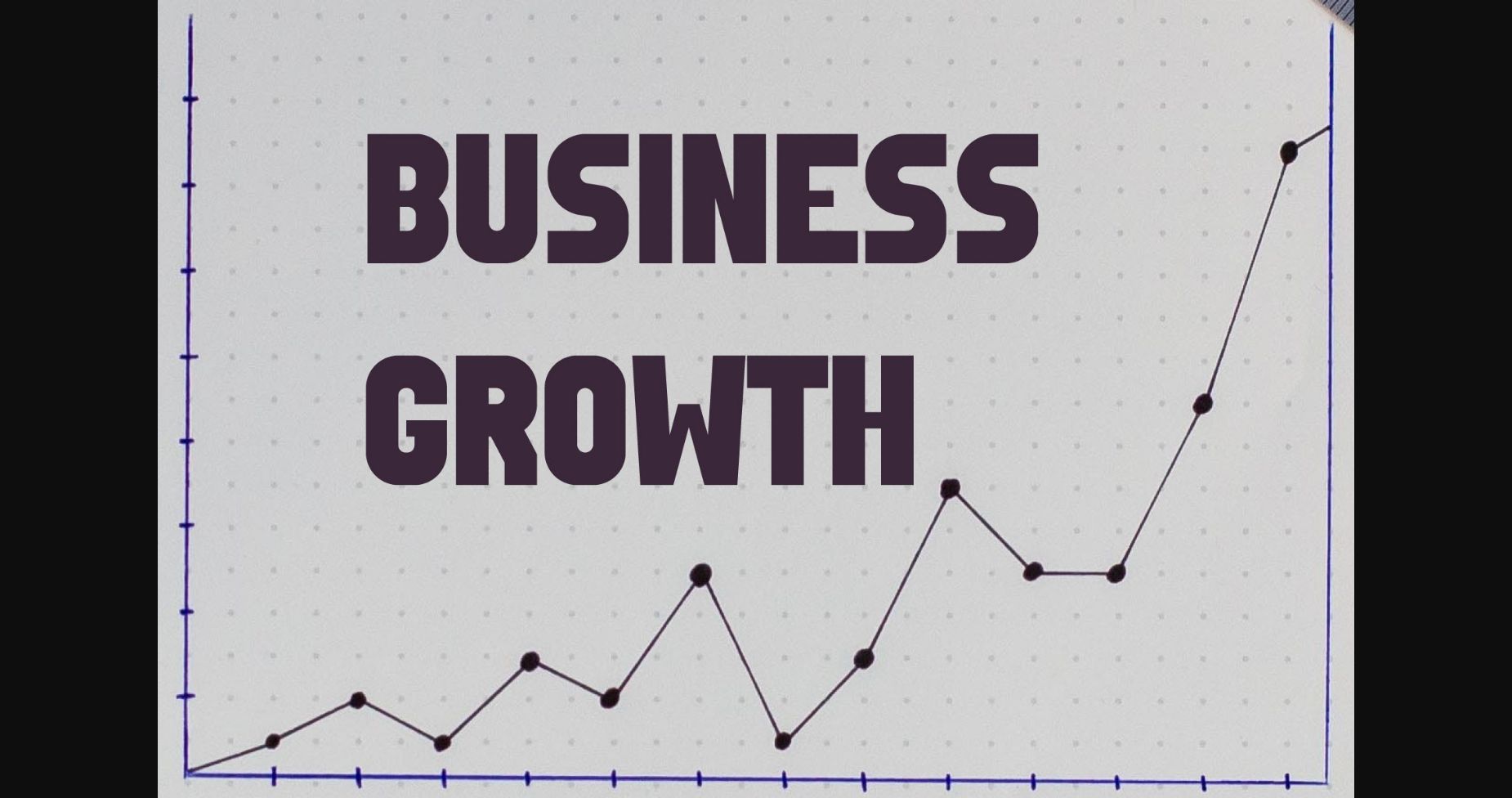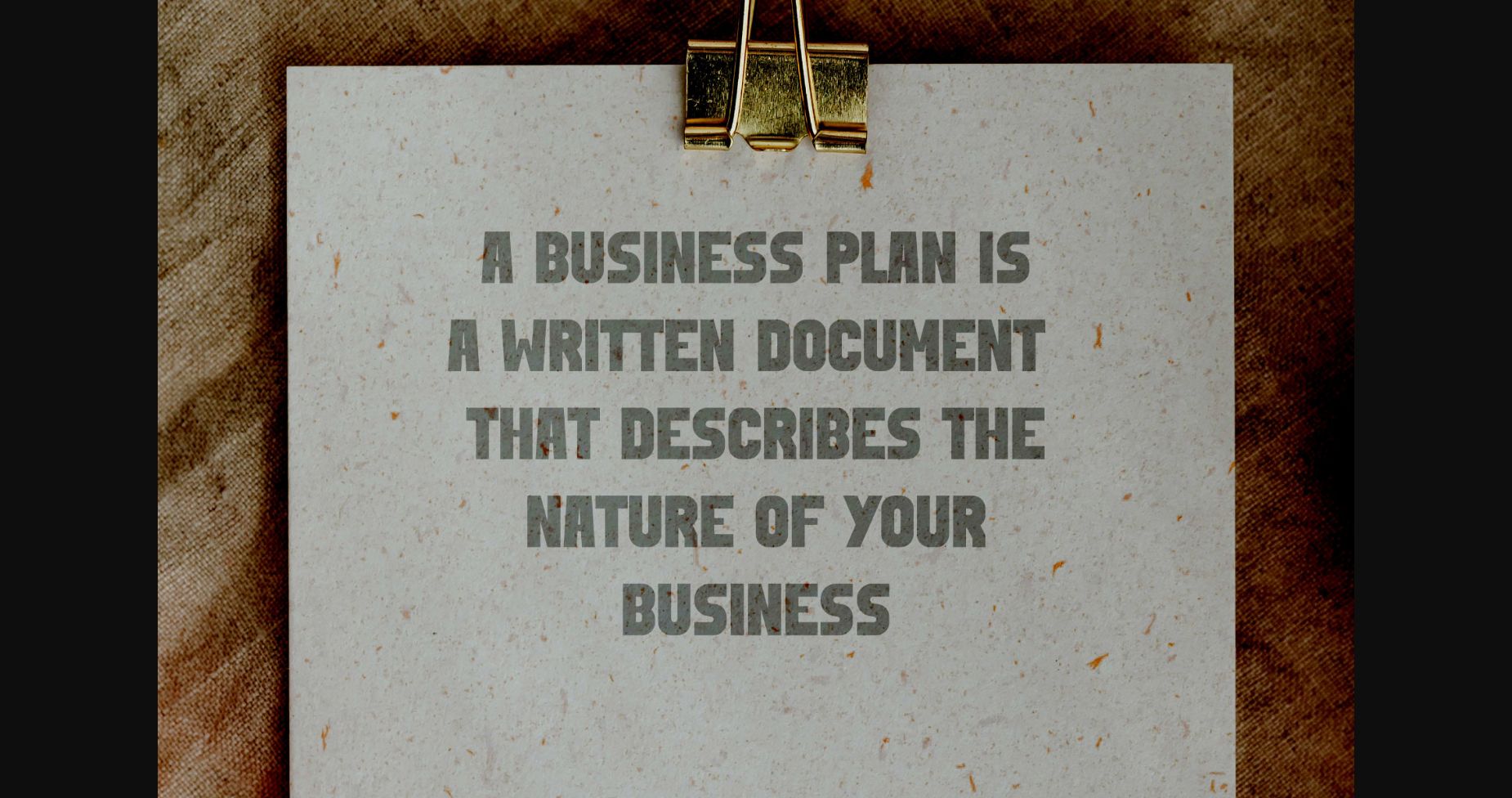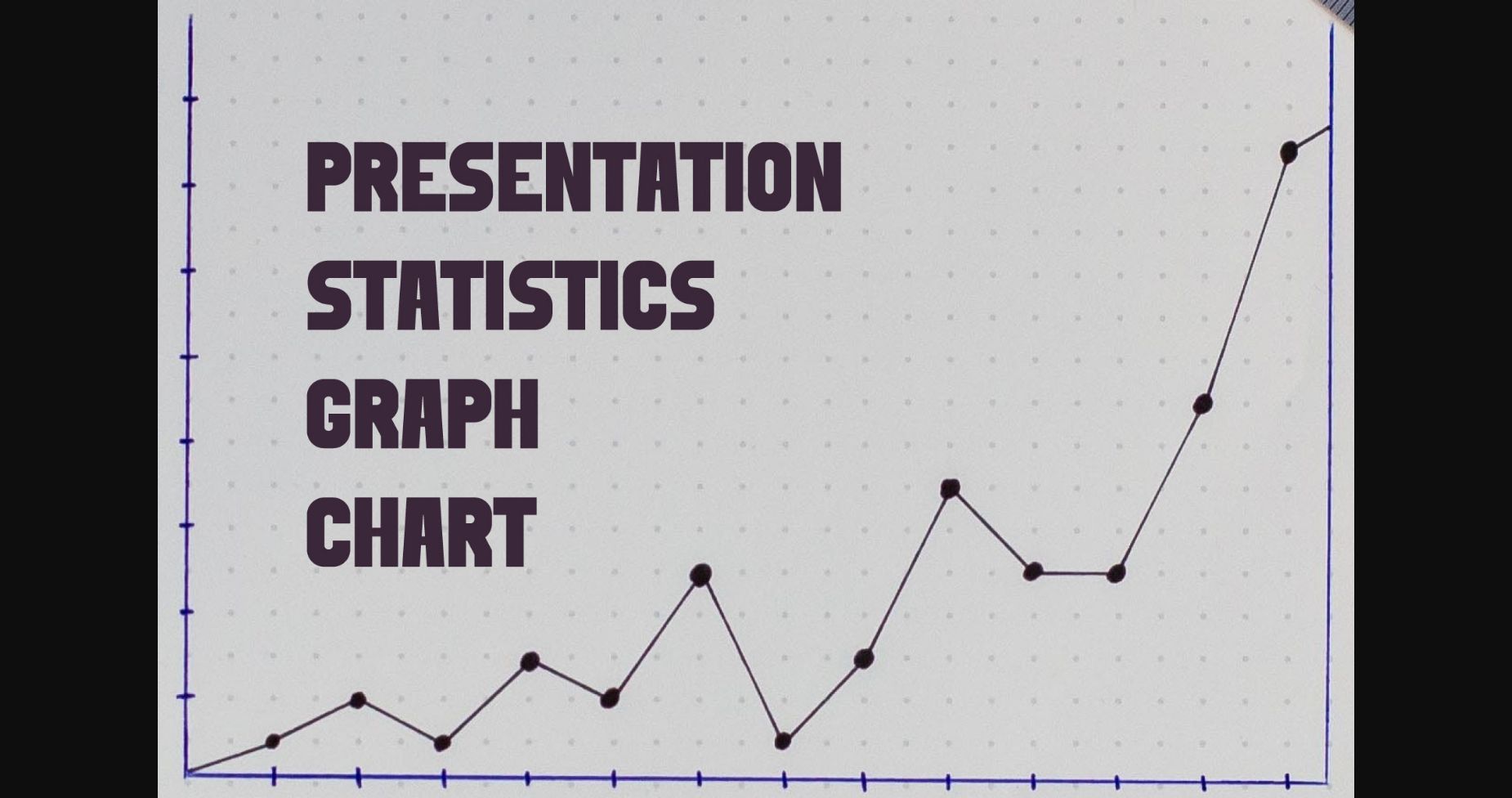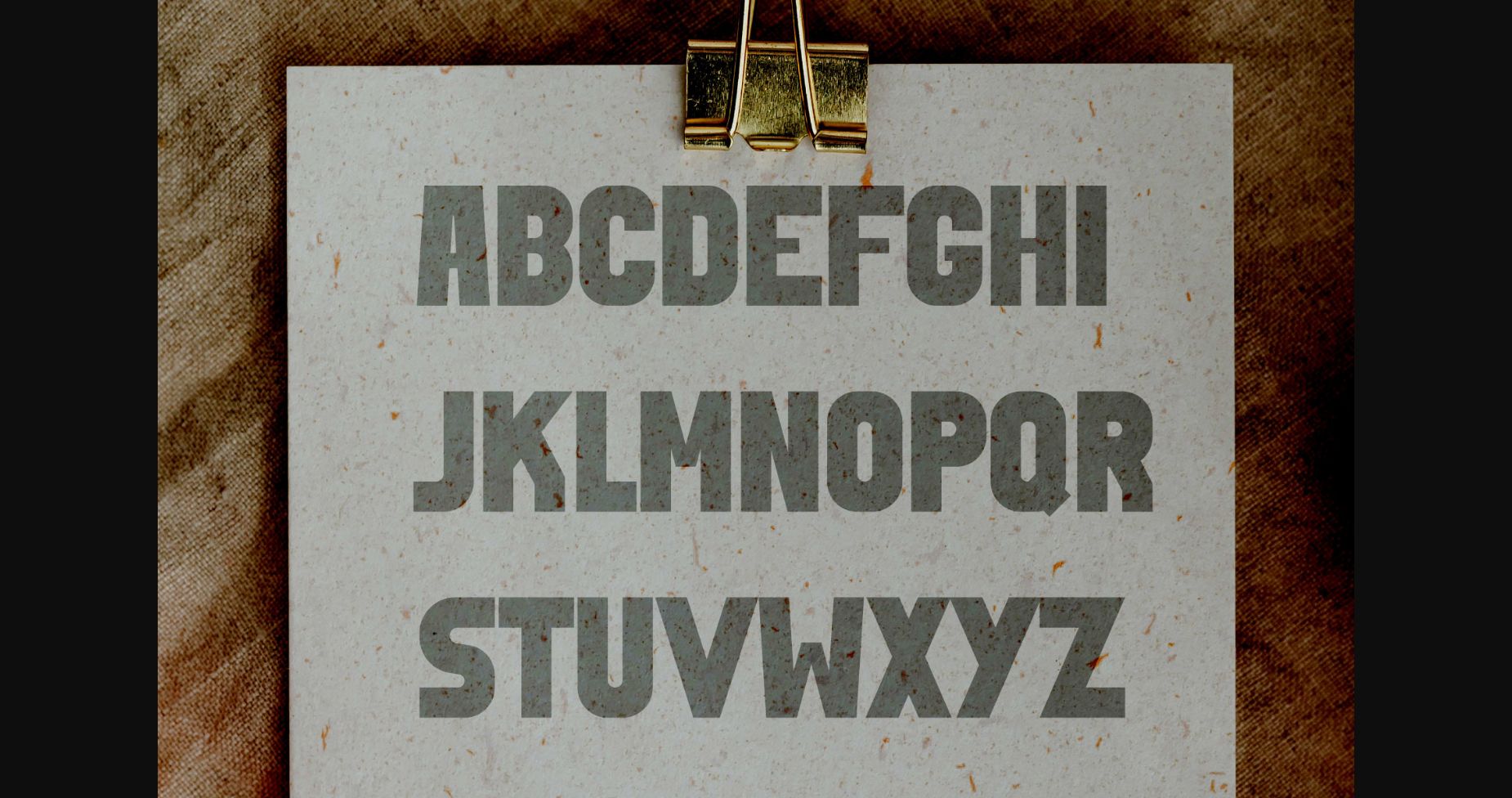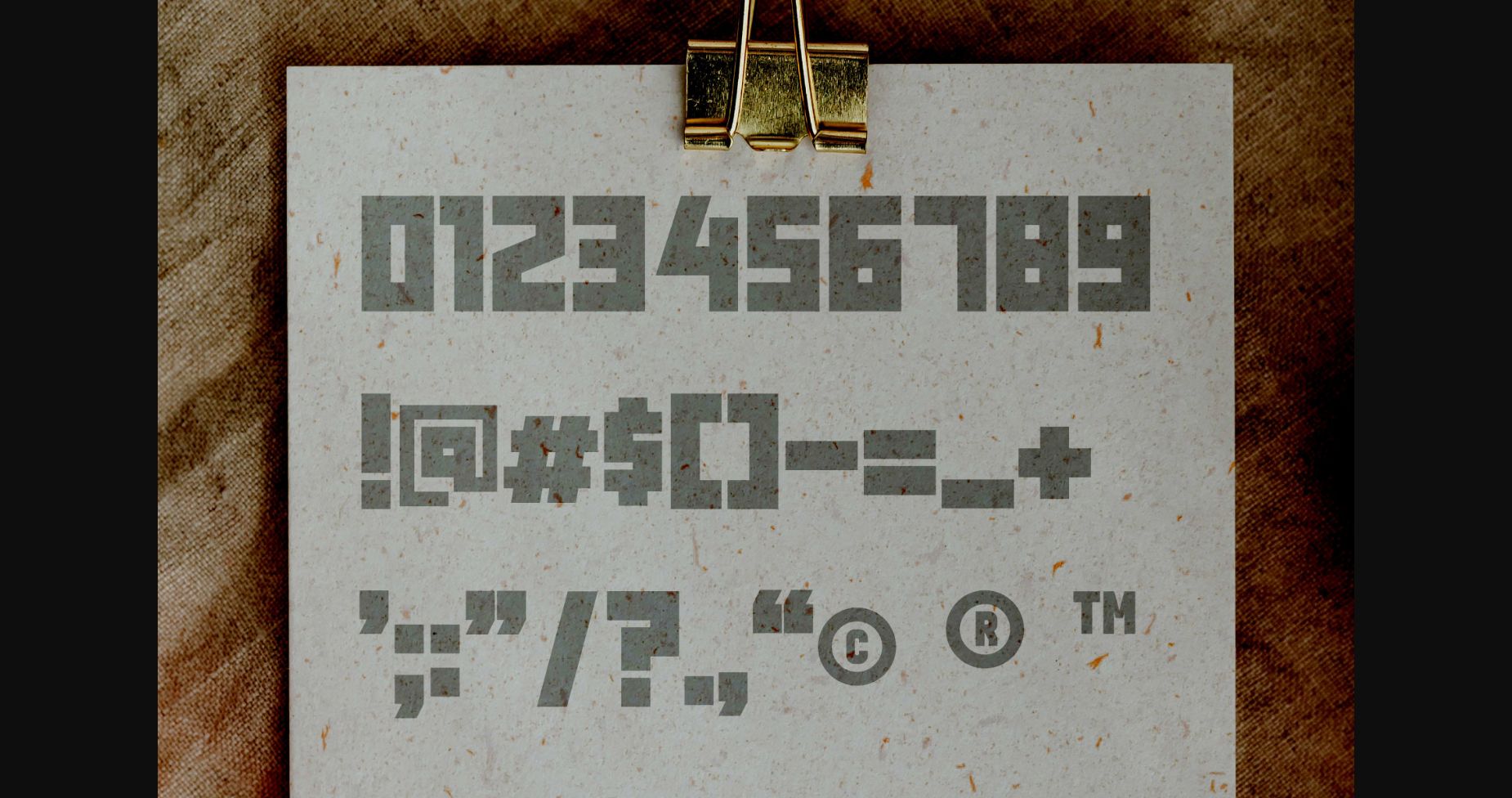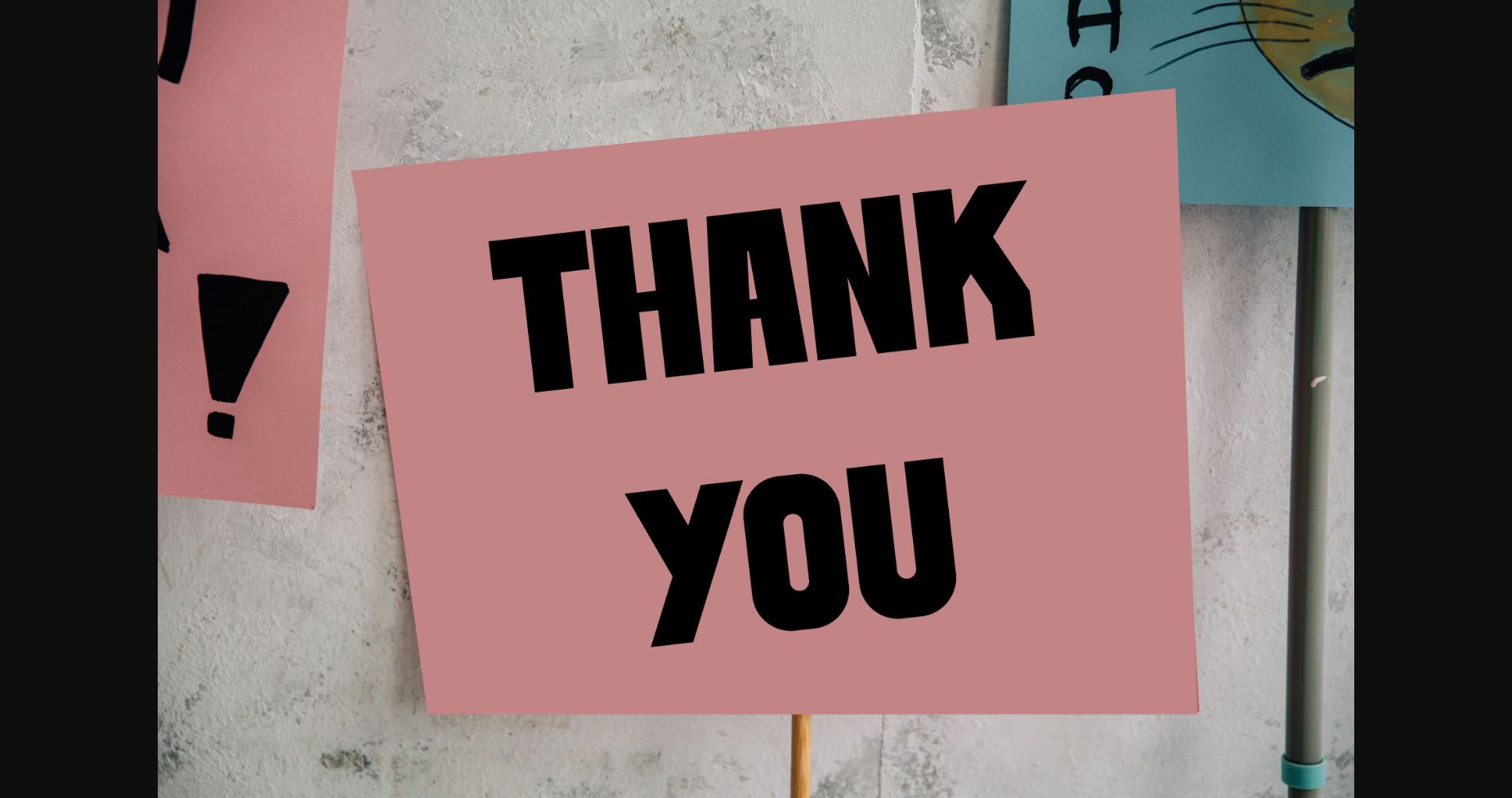
Business Growth Font
About Business Growth Font
Business growth is a solemn sans serif font, designed to make any creation look majestic! Add it to your most creative ideas, and notice how it makes them stand out!